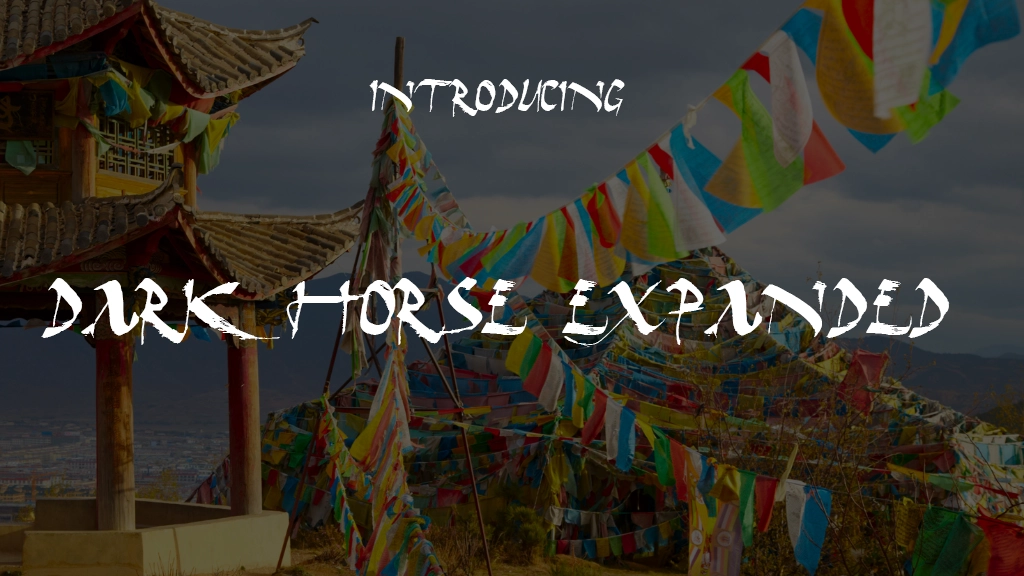
Dark Horse Expanded is a decorative font that is perfect for playful designs. The font subfamily is Expanded, which means that the letters are wider than in the regular Dark Horse font.